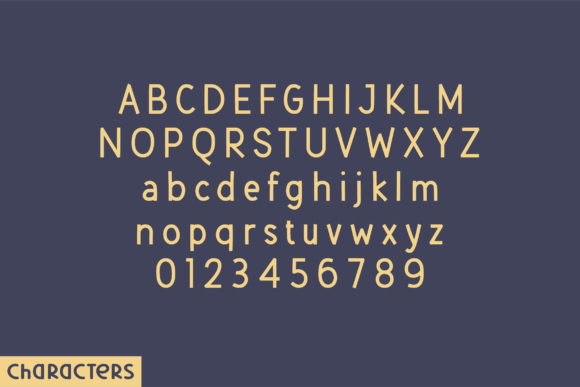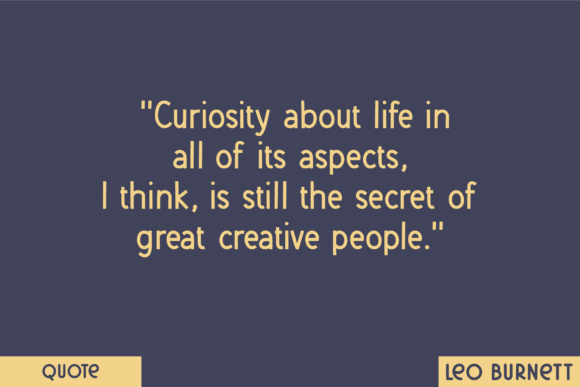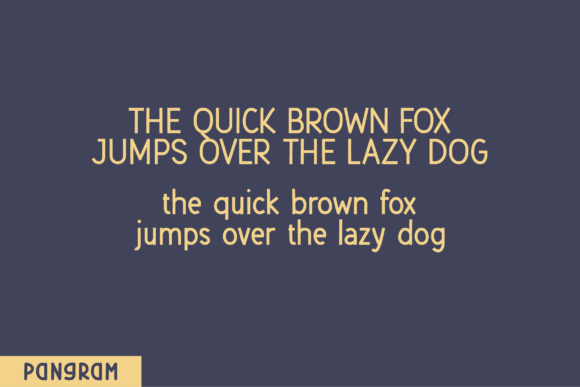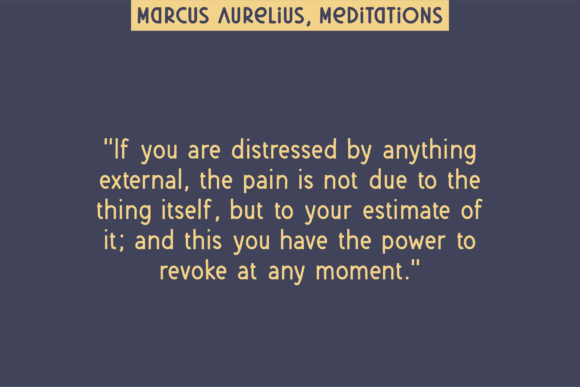
Introduction to Pumpkin Muffins Font
Have you ever been working on a creative project, pouring your heart and soul into every detail, only to find the perfect font to bring it all together? That’s exactly what happened to designers when they discovered the Pumpkin Muffins Font.
This natural sans serif font is a game-changer, offering a unique and high-quality design resource that’s perfect for quotes, notes, tees, and any product design. One of the standout features of Pumpkin Muffins Font is its transparent background, making it a versatile choice for any creative project.
What sets Pumpkin Muffins Font apart is its creation process – each character’s indentation was left untouched, resulting in a truly one-of-a-kind design. And the best part? It’s available for a free download, making it an invaluable resource for designers looking to elevate their work.
Key Features of Pumpkin Muffins Font
- High-quality, hand-drawn design perfect for a creative project or design resource.
- Includes a transparent background for easy layering and customization in your design.
- Unique, whimsical design that adds a touch of autumnal charm to any creative project.
Honest Review: Pumpkin Muffins Font
I recently stumbled upon the Pumpkin Muffins Font, a delightful design resource that caught my eye. As a designer, I appreciate high-quality fonts that can elevate my creative projects.
- ✨ The font is designed with a transparent background, making it easy to use with various design elements.
- ✨ The font’s whimsical design makes it perfect for fall-themed projects, such as greeting cards, party invitations, and more.
- ⚠️ The font is limited to a single style, which might not be suitable for projects that require multiple font styles.
- ⚠️ The font’s legibility might not be ideal for large text sizes, so use it for smaller text or decorative purposes.
Overall, I’m impressed with the Pumpkin Muffins Font’s unique design and versatility. It’s a great addition to any designer’s toolkit, especially for creative projects that require a playful touch. While it has some limitations, it’s definitely worth trying out for your next design project.
Pumpkin Muffins Font
The Pumpkin Muffins Font is a high-quality, free download design resource ideal for creative projects that require a playful and seasonal touch. Its transparent background makes it versatile for use in various applications.
To maximize the use of the Pumpkin Muffins Font, consider the following tips:
- Use the font in conjunction with autumn-themed graphics or illustrations.
- Apply the font to text elements that require a playful and whimsical touch.
- Experiment with different font sizes and colors to create a visually appealing design.
The Pumpkin Muffins Font is ideal for:
- Autumn-themed greeting cards or invitations.
- Seasonal social media graphics or posts.
- Playful blog posts or articles.
Alternatives to Pumpkin Muffins Font
Butternut Font
The Butternut Font is a high-quality, free download that is perfect for designers working on creative projects. It features a transparent background and a unique design that is reminiscent of pumpkin muffins.
When to use: This font is ideal for fall-themed designs, food blogs, and social media graphics. It compares to Pumpkin Muffins Font in terms of its playful and seasonal vibe, but has a more subtle and elegant design.
Harvest Script Font
The Harvest Script Font is a beautiful, handwritten font that is perfect for designers who want to add a touch of warmth and personality to their creative projects. It features a high-quality design and a transparent background, making it easy to use on any background.
When to use: This font is ideal for wedding invitations, birthday cards, and other seasonal greetings. It compares to Pumpkin Muffins Font in terms of its autumnal theme, but has a more elegant and sophisticated design.